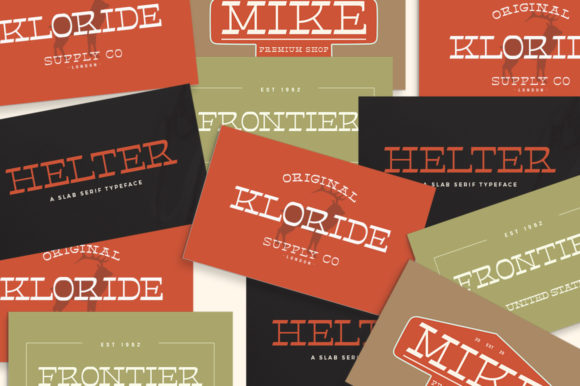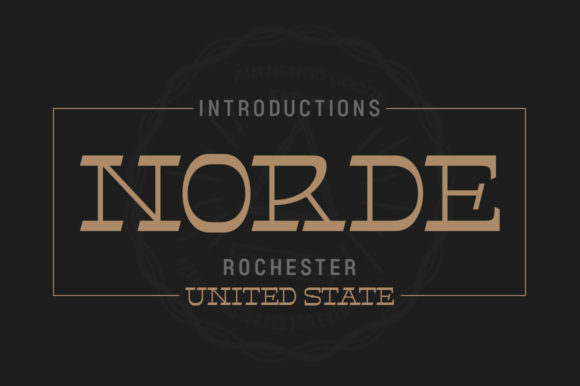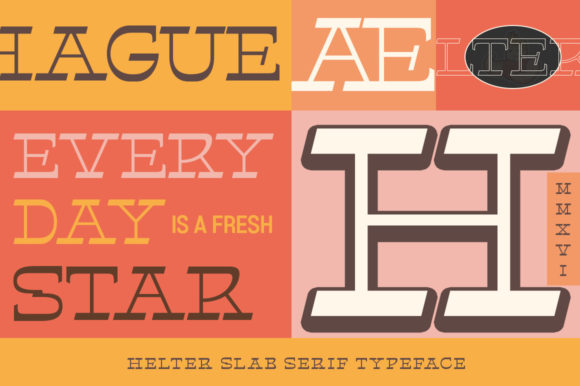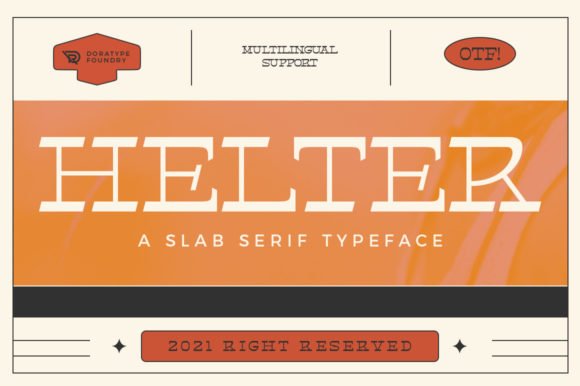
Helter is a bold and chic slab serif font.
Whatever the topic, this font will be a wonderful asset to your font library, as it has the potential to enhance any creation .
Helter Font offers exceptional quality and versatility, making it a valuable addition to your design toolkit. Whether you’re creating for personal projects or commercial use, Helter Font delivers professional results.